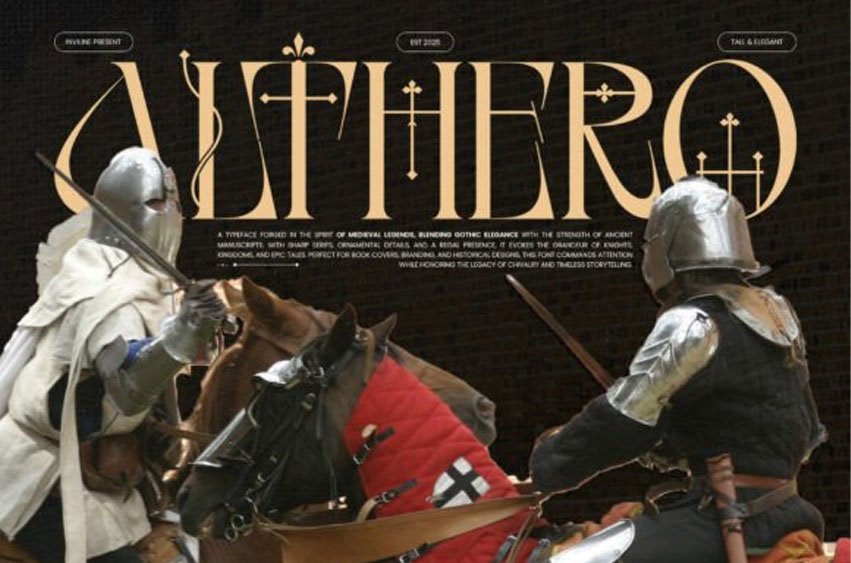
Althero Regular Font is a regal gothic decorative serif font inspired by medieval legends, heroic tales, and ancient manuscripts. With its tall form, sharp serifs, and ornamental details, Althero evokes the glory of chivalry, epic kingdoms, and historical elegance.
Ideal for book covers, branding, fantasy posters, and themed editorials, this font delivers a powerful presence that honors timeless storytelling and noble traditions.